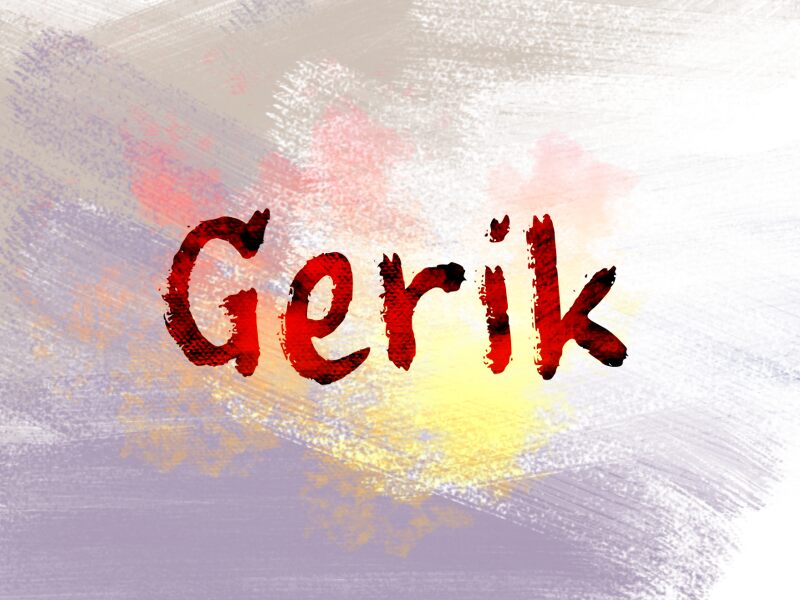
Gerik
Gerik is a bold, dynamic font that commands attention. Inspired by the rugged beauty of nature, its brush-like strokes exude a raw, expressive energy. The sweeping lines and uneven edges give the font a sense of organic movement, creating a captivating visual rhythm.
Gerik's strong, confident presence makes it an ideal choice for eye-catching headlines, impactful logos, and attention-grabbing signage. Its versatility extends to a range of applications, from modern branding to rustic, handcrafted designs. The font's distinctive character can also breathe life into editorial layouts, packaging, and various digital media, adding a touch of distinctive flair to any project.